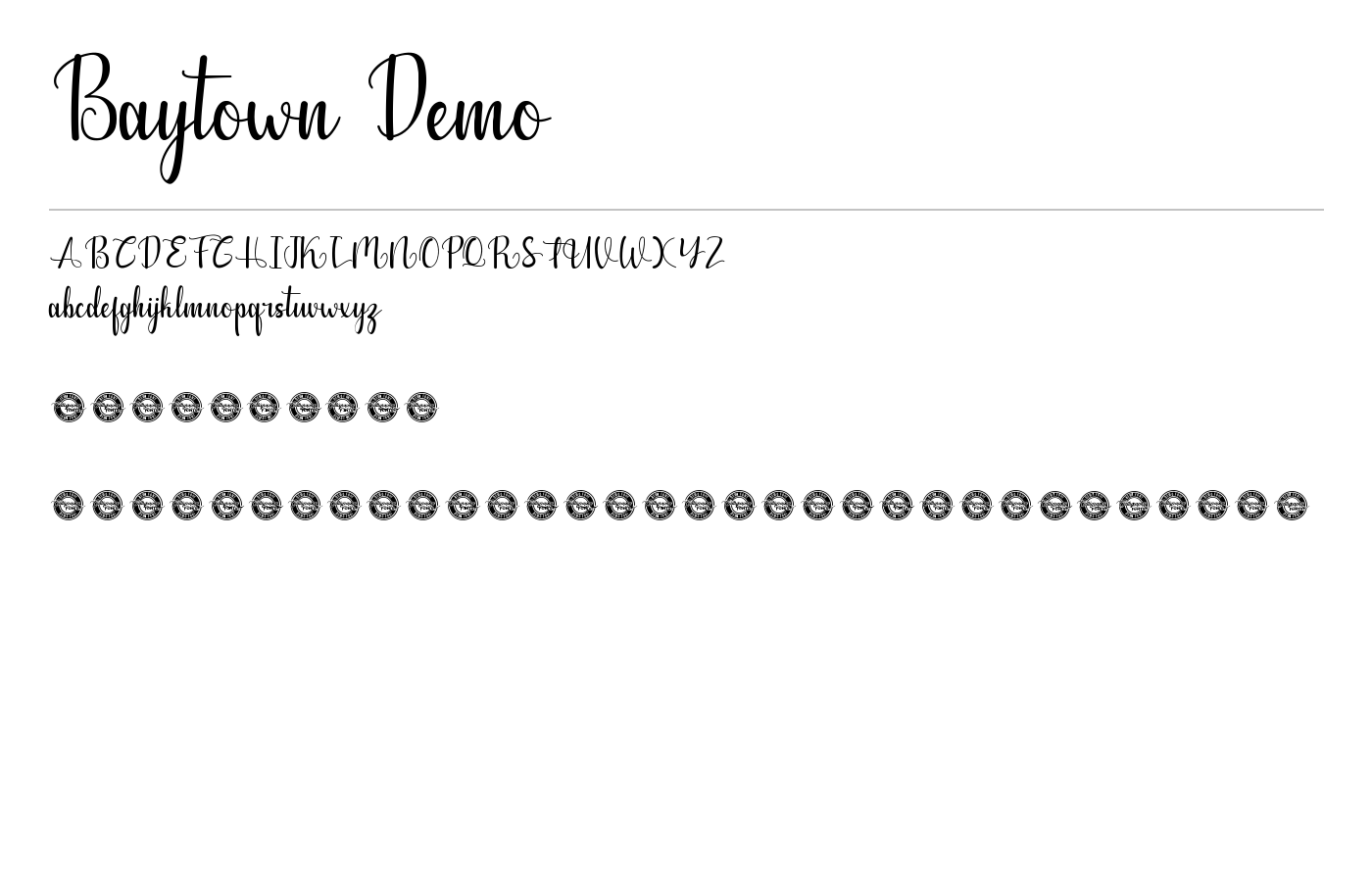
Baytown Demo is a charming script font with a graceful, handwritten style that features slender, flowing letterforms and moderate contrast in stroke weight. Its elegant curves and smooth connectives give it a friendly yet sophisticated personality, making it ideal for invitations, branding, or any design that seeks a personal and refined touch. This font works beautifully in headlines or logos where a stylish, approachable, and artistic feel is desired.
| Font family | Baytown Demo Font |
| Designer | Shalsha & Suci Anita |